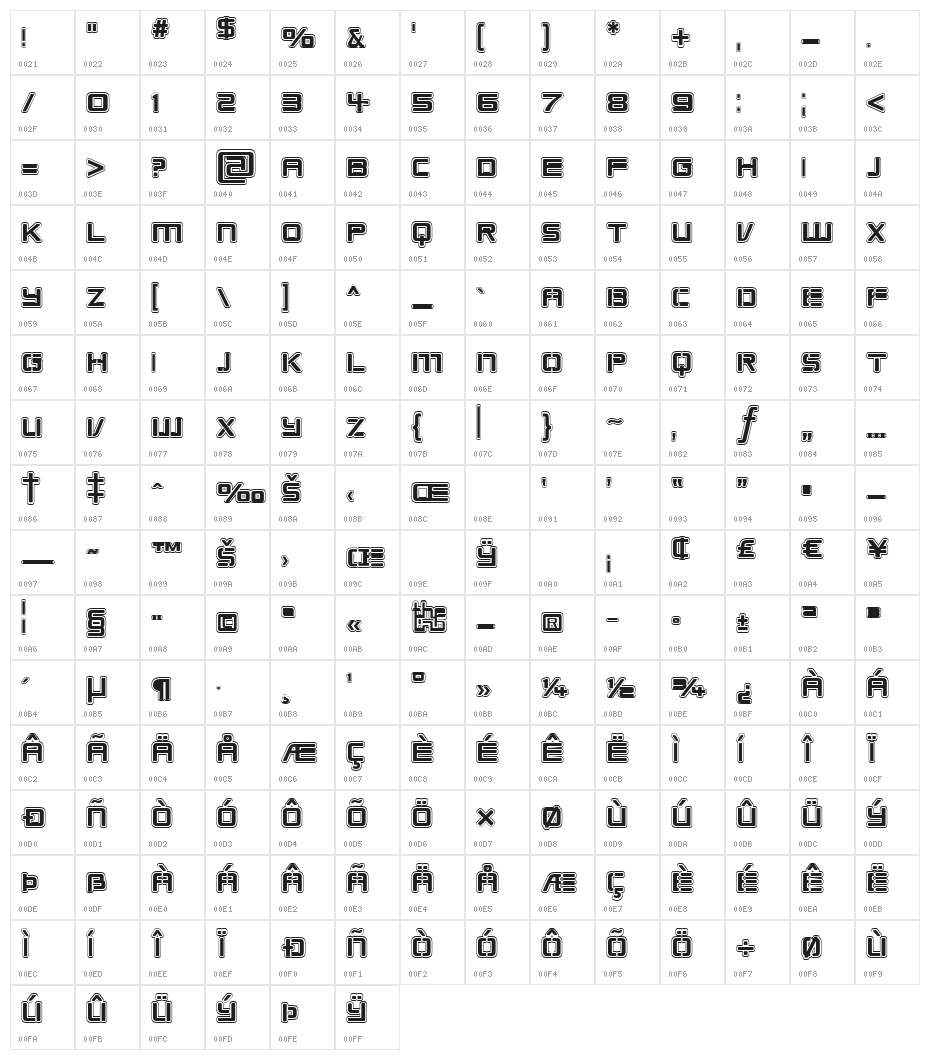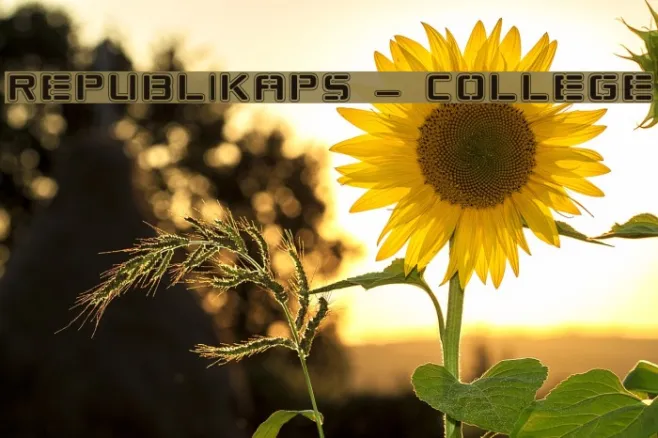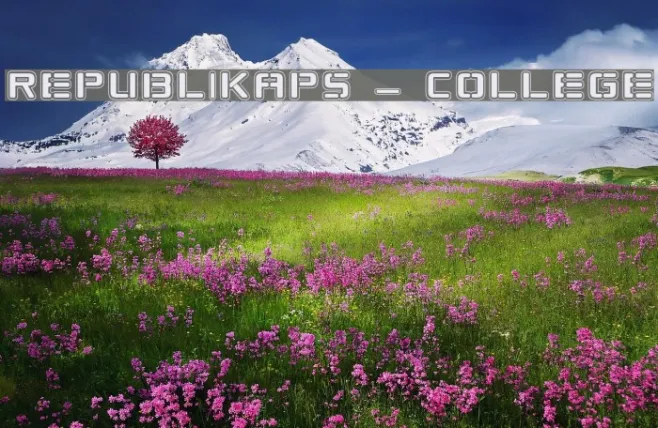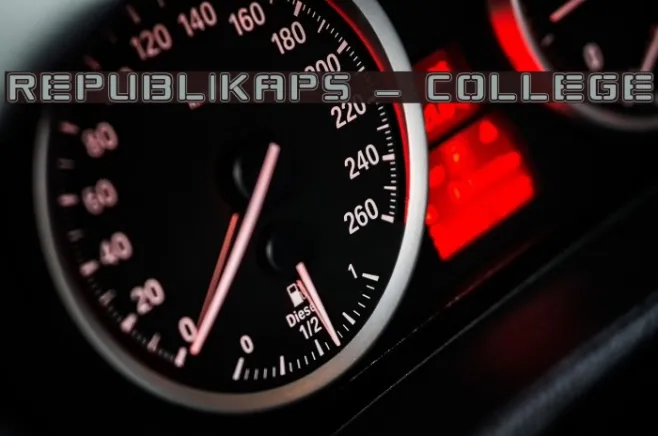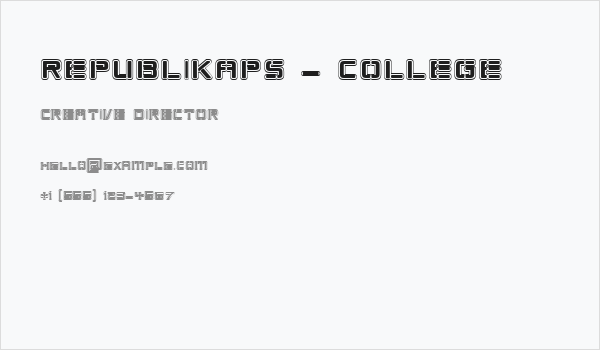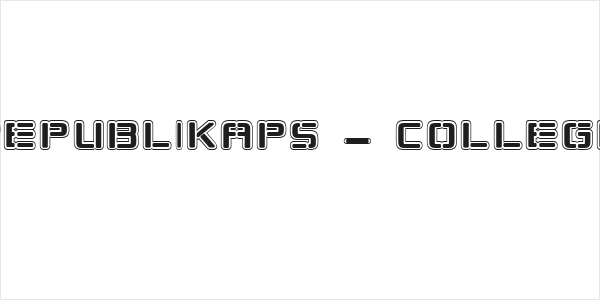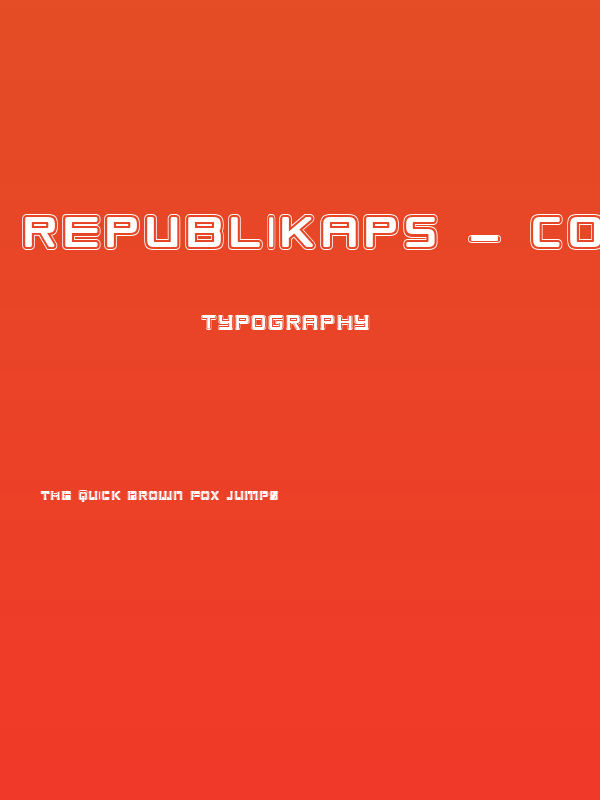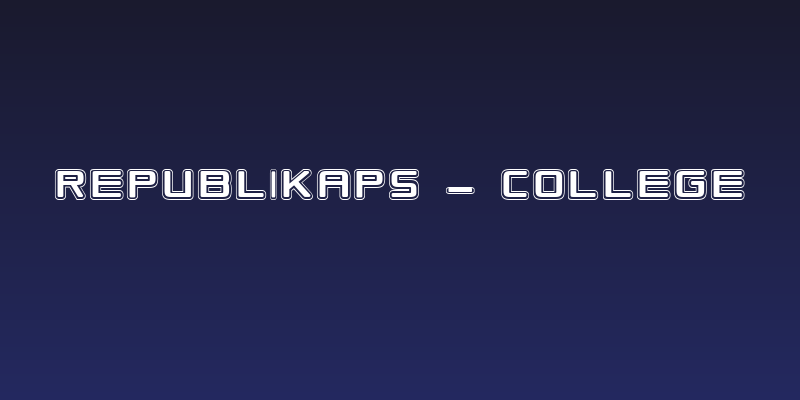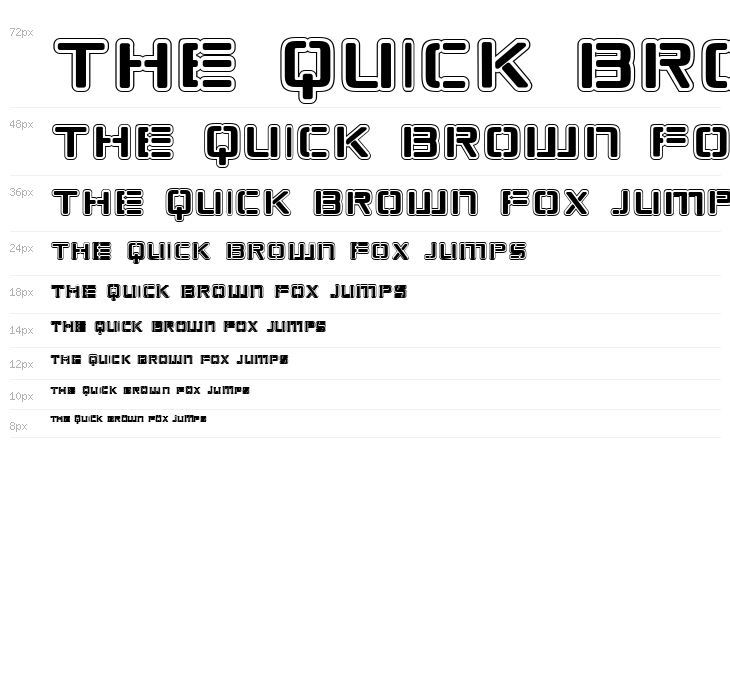
Republikaps - College Font
Republikaps - College Description
This font features a bold, outlined style with a modern and sporty aesthetic. Each character is designed with a double-line effect, creating a sense of depth and dimension. The uppercase and lowercase letters maintain a consistent width, contributing to a uniform appearance. The numbers and special characters follow the same design principles, ensuring a cohesive look across all glyphs. The font's geometric structure and clean lines make it suitable for projects that require a contemporary and dynamic feel.
Proposed ProjectsIdeal for sports team branding, event posters, merchandise designs, and digital media graphics.